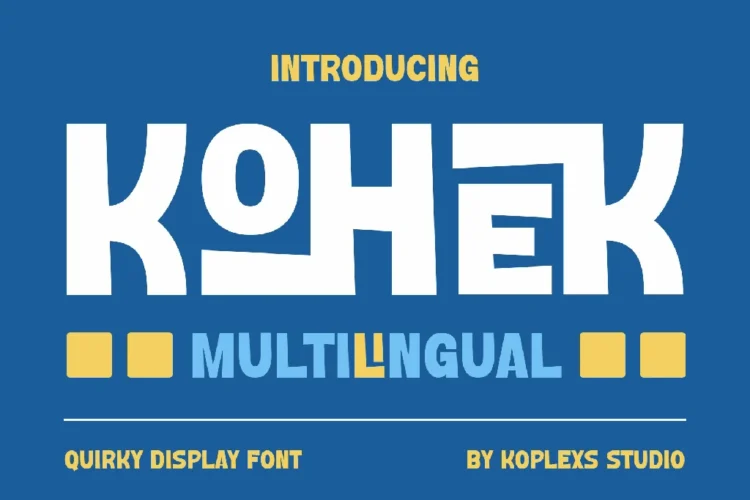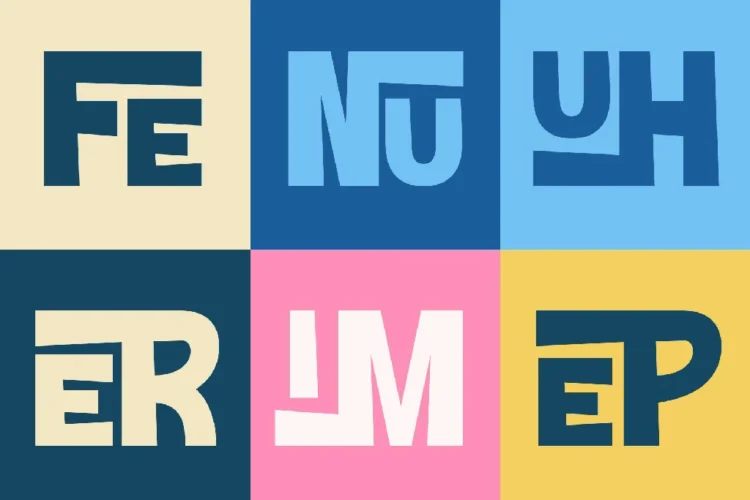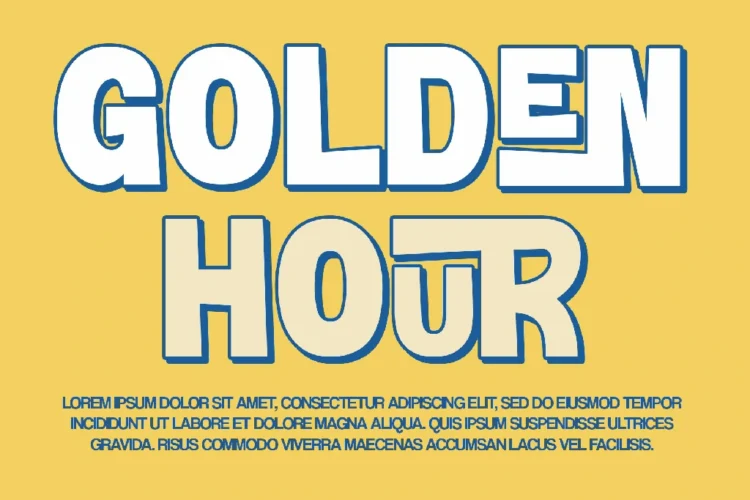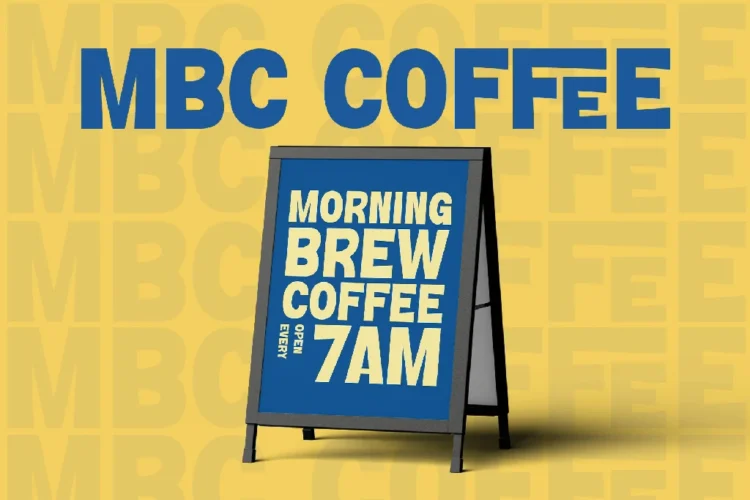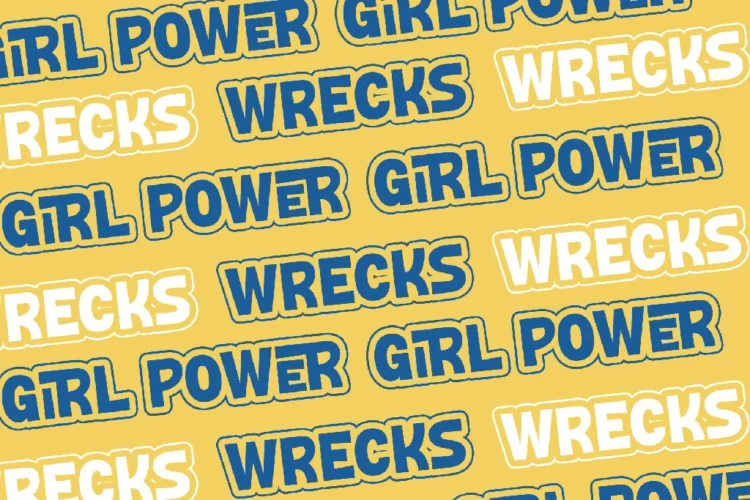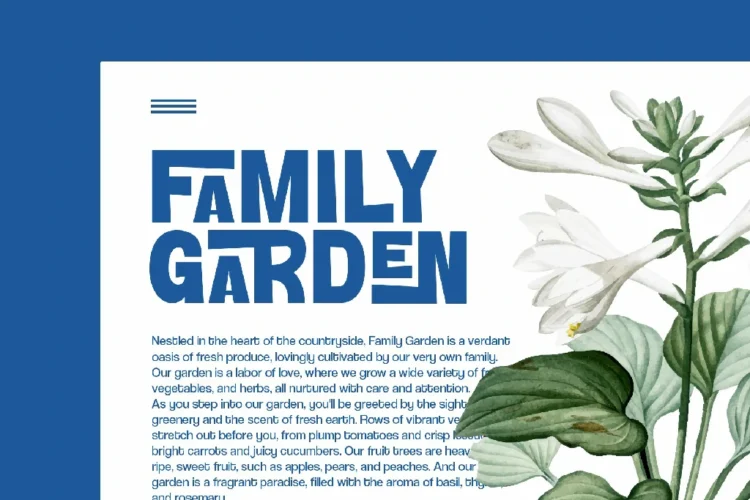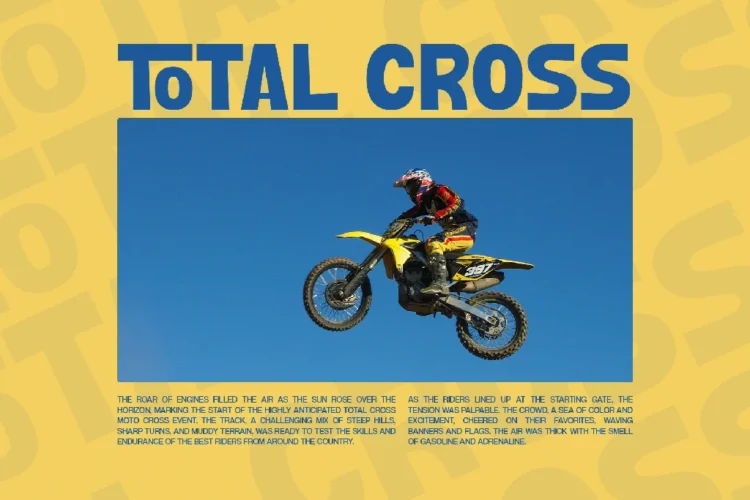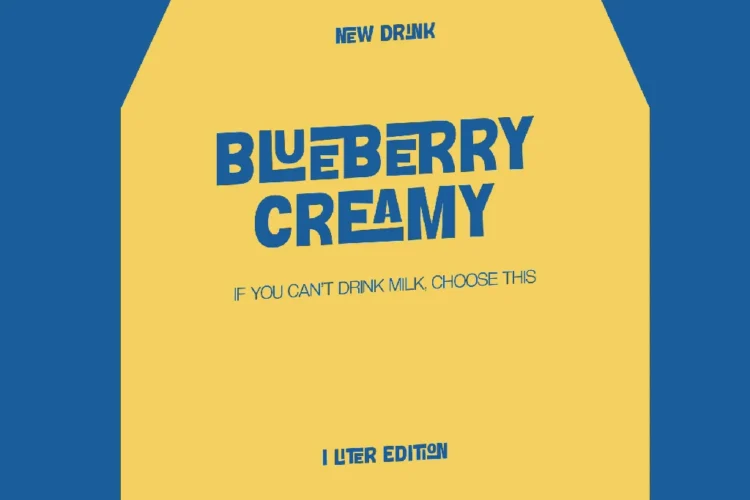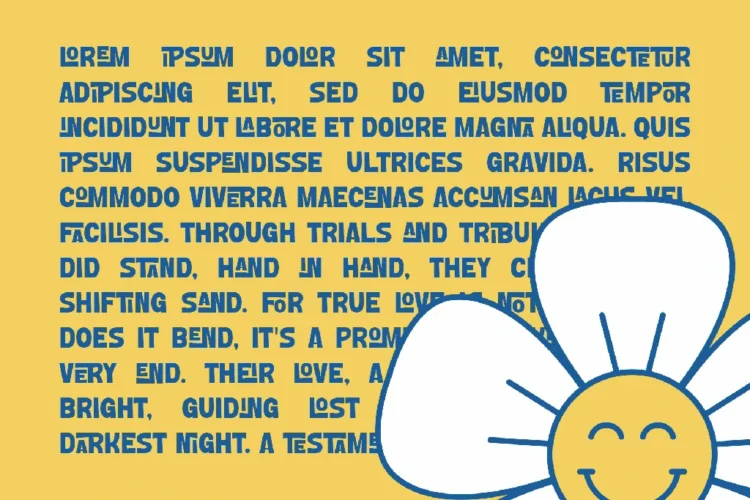
KOHEK Font – Playful Modern Display Sans Serif for Branding, Posters & Logos
KOHEK Font is a bold and quirky display font designed by Koplexs Studio. Available in Regular and Italic styles, KOHEK includes ligatures that bring a unique rhythm to every word. Its strong geometry mixed with playful distortion gives it a modern yet classic feel, perfect for designers who love character and creativity.
This playful font combines modern sans serif structure with aesthetic and cool font flair, making it stand out in any design. Whether you’re crafting luxury branding, cosmetic packaging, or creative posters, KOHEK delivers an unforgettable visual identity. Its clean yet quirky letterforms make it suitable for both elegant font and goods font applications from minimalist packaging to bold headline font or cover font layouts.
KOHEK Font Included :
- Alternates
- Ligature
KOHEK Font is versatile and works beautifully for :
- Branding and Logo Design
- Cosmetic Packaging and Product Labels
- Posters and Advertising Designs
- Editorial Covers and Headings
- Social Media Graphics and Quotes
- Fashion or Lifestyle Branding
- Modern Signage and Coffee Shop Menus
✨KOHEK Font Features:
- Full multilingual support
- ligatures for custom styling
- Uppercase & lowercase letters
- Punctuation and numerals
KOHEK Font is your branding font solution for creating designs that are stylish, expressive, and memorable. From bold headlines to artistic displays, this sans serif font bridges modern design with playful aesthetics the ideal balance of elegant and cool.